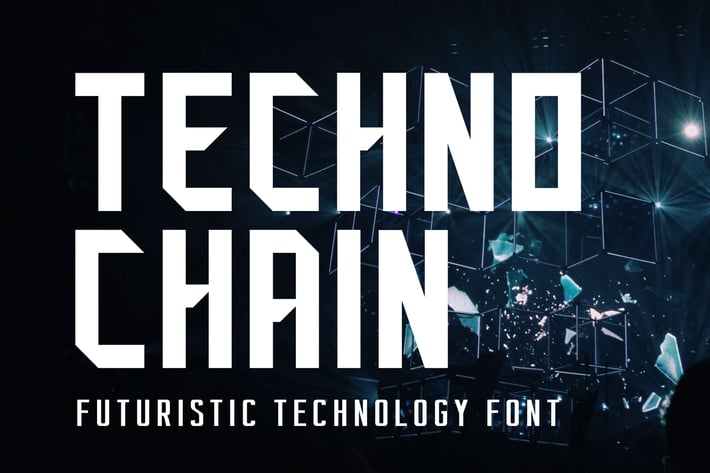
Techno Chain Futuristic Technology Font
Techno Chain is elegant and futuristic font. It can easily be matched to an incredibly large set of projects like logo, package, advertisement, magazine, , so add it to your creative ideas and notice how it makes them stand out!